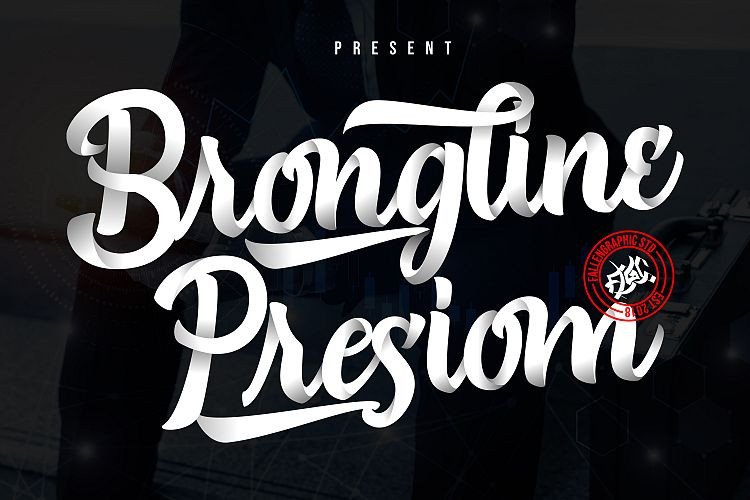
Brongline Presiom Script Font Demo
Welcome to Brongline Presiom Font. This is a new fresh & modern script with a handmade calligraphy style, decorative characters and a dancing baseline! It is design and shared by FallenGraphic Std. It’s a modern bold script font. Can be used for various purposes.such as headings, signature, logos, wedding invitation, t-shirt, letterhead, signage, lable, news, posters, badges etc.